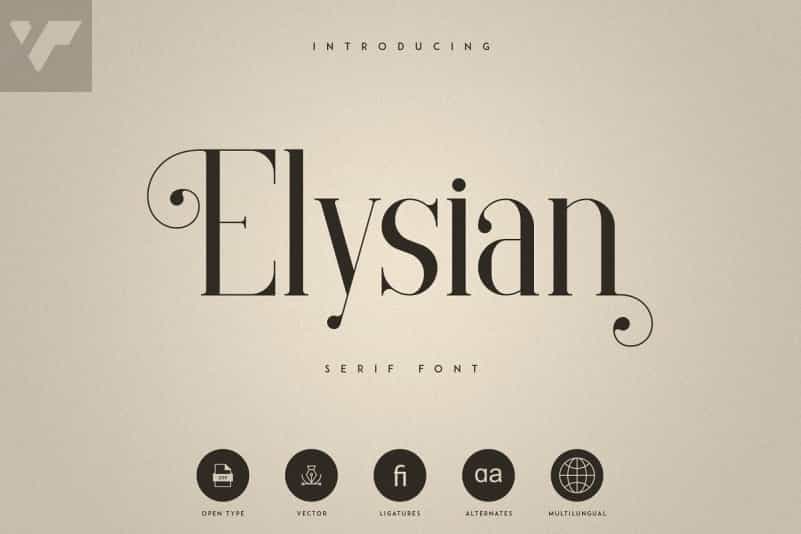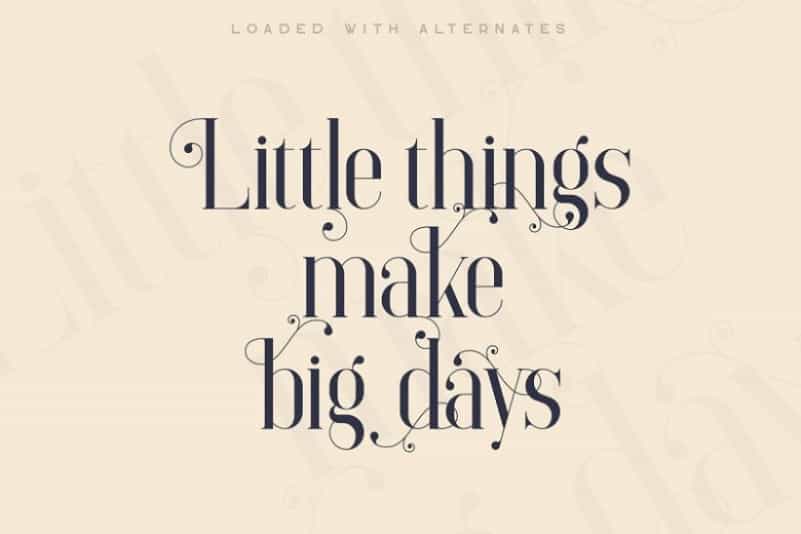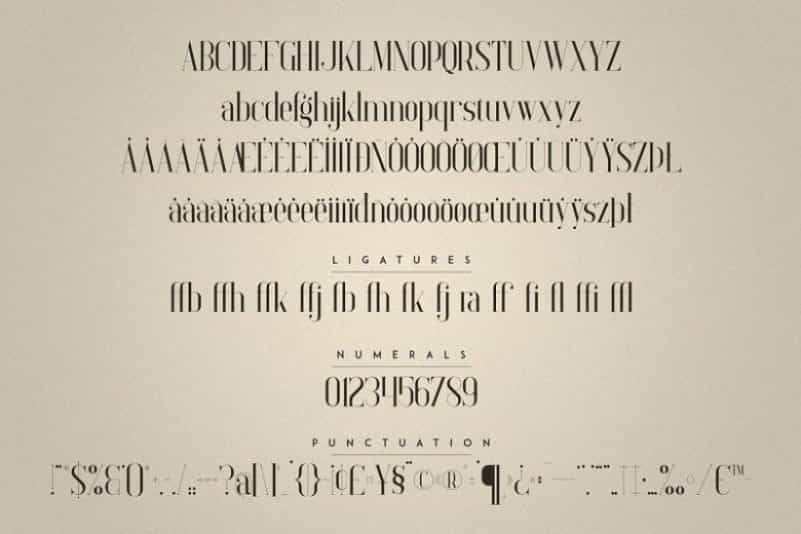
Elysian Font – the luxurious, old-fashioned serif with more than 150 hand-drawn alternates and texture, which is preserved for a special vintage yet modern look. Every letter has a slightly rough surface that is used to enhance the softness of Indigo Moon’s usual details.